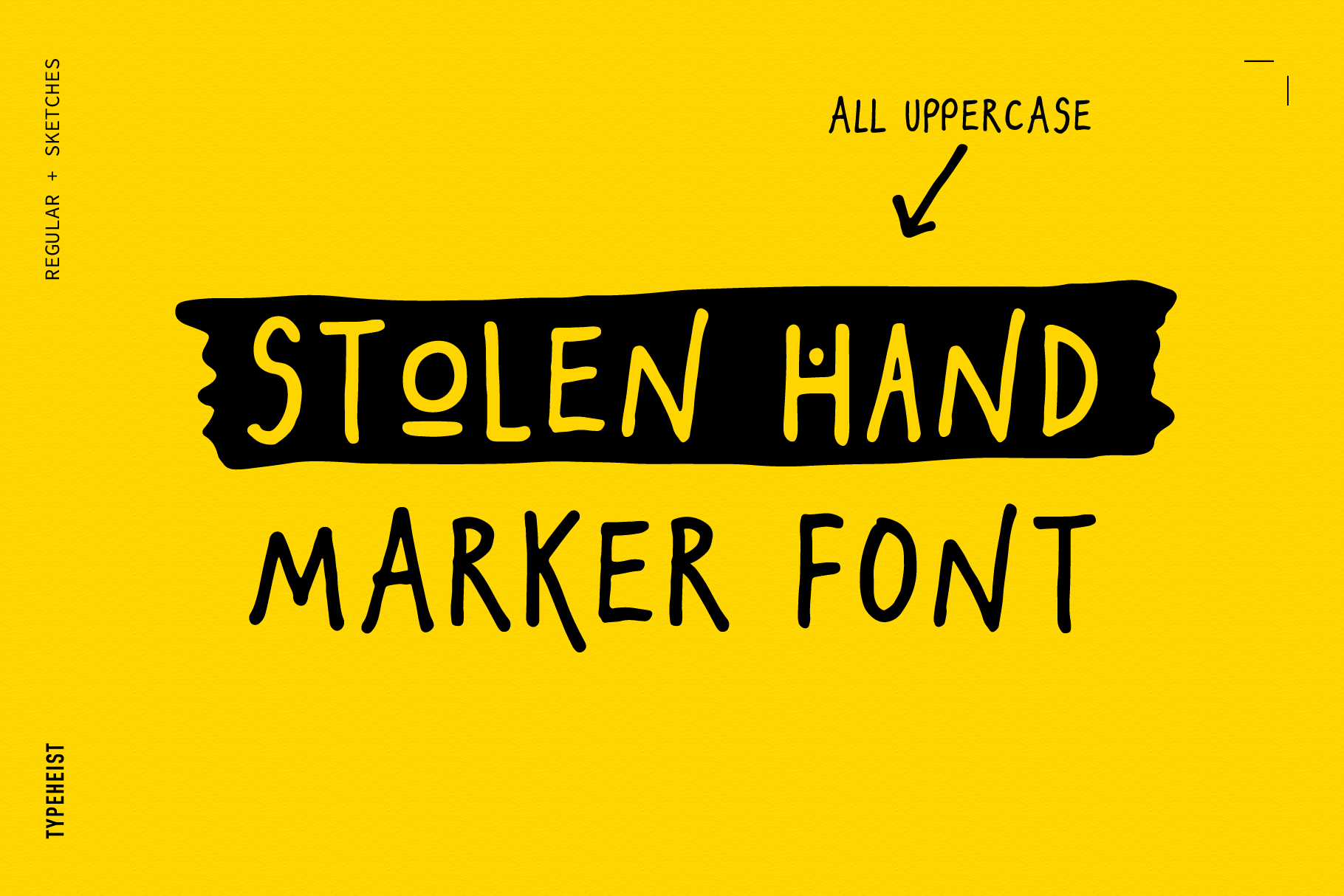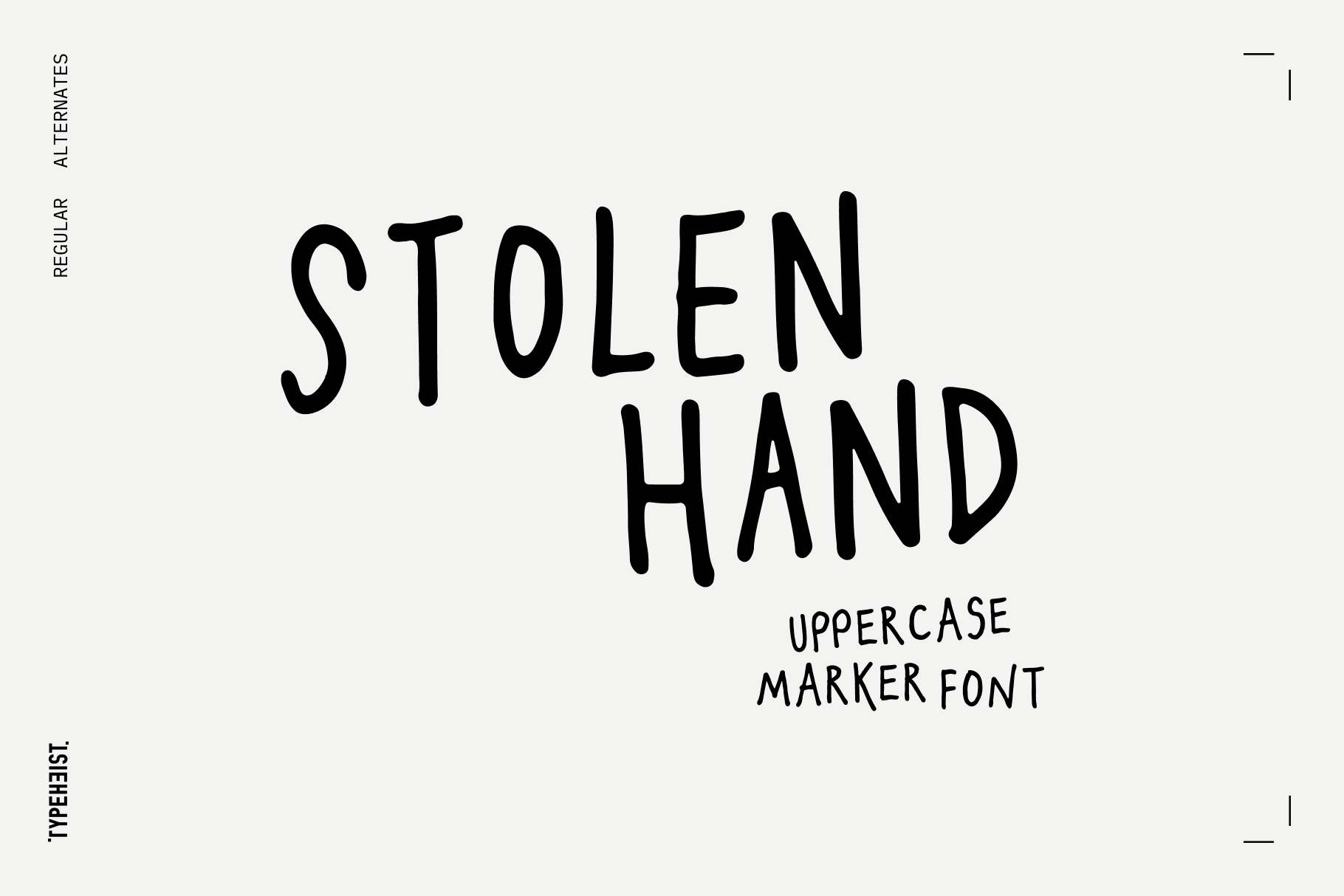
Stolen Hand is a cool and casual handwritten font, 100% uppercase, 100% marker.
Hand-drawn with a Sharpie and converted into a font - and just like a marker pen it has natural edges and realistic shapes. Stolen Hand includes bonus stylistic alternates of the A-Z and 0-9 characters (Quirky and Sketches).
Stolen Hand is perfect for designs where you need a font that’s a little more rough around the edges. The natural marker shape can be seen throughout the font, giving that extra bit of depth.
Also included is a stylistic alternate set, ‘Sketches’, a set of hand-drawn smileys, scribbles and scrawls.